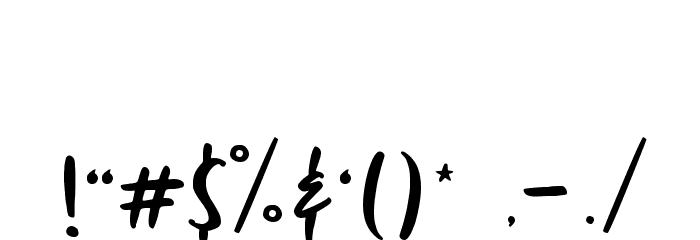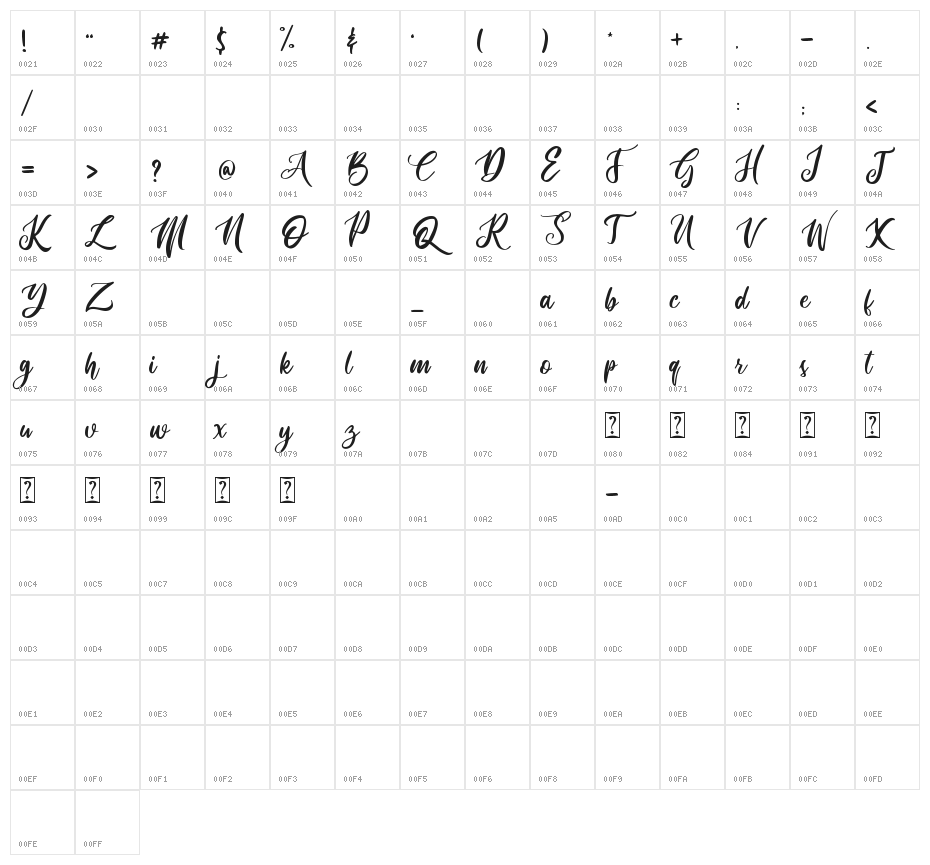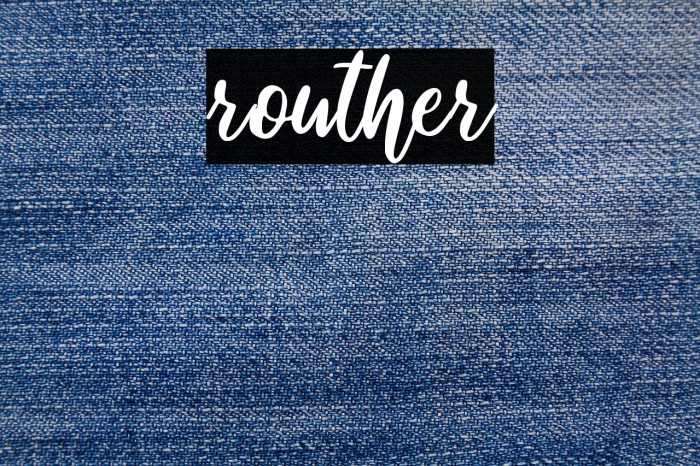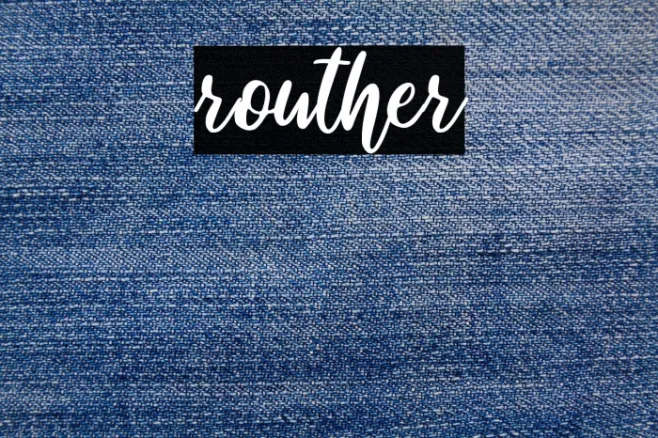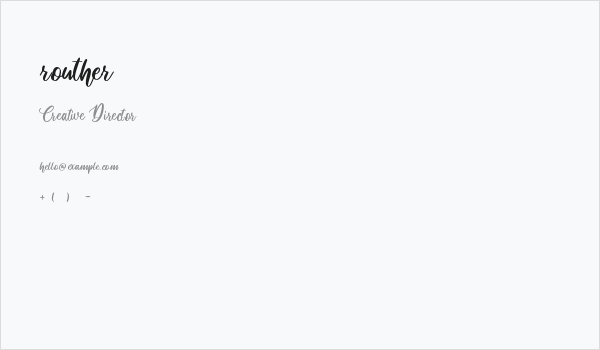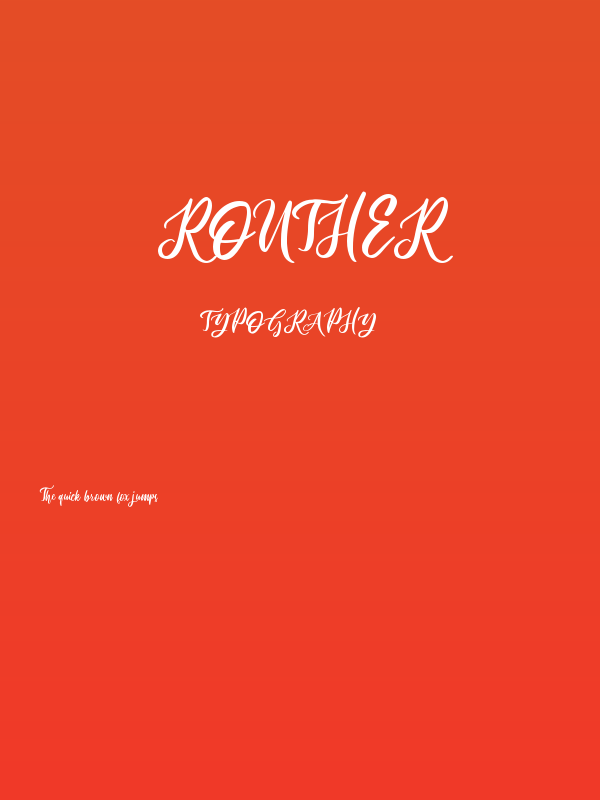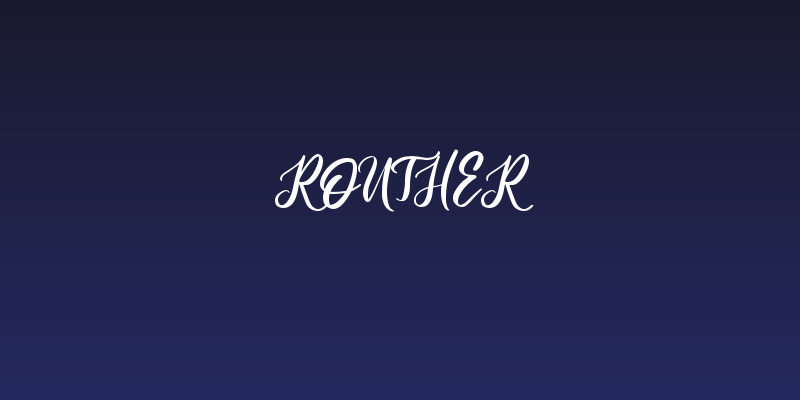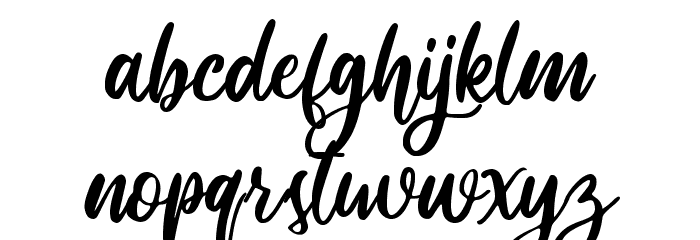
routher Font
routher Description
This font features a dynamic and flowing script style, characterized by its elegant and cursive letterforms. The uppercase letters exhibit a graceful, sweeping motion with intricate loops and flourishes, adding a sense of sophistication and charm. The lowercase letters maintain a consistent fluidity, with smooth connections between characters that enhance readability while preserving the decorative appeal. The numerals and special characters are designed to complement the overall script style, ensuring a cohesive appearance across all text. This font is ideal for projects that require a touch of elegance and personal flair.